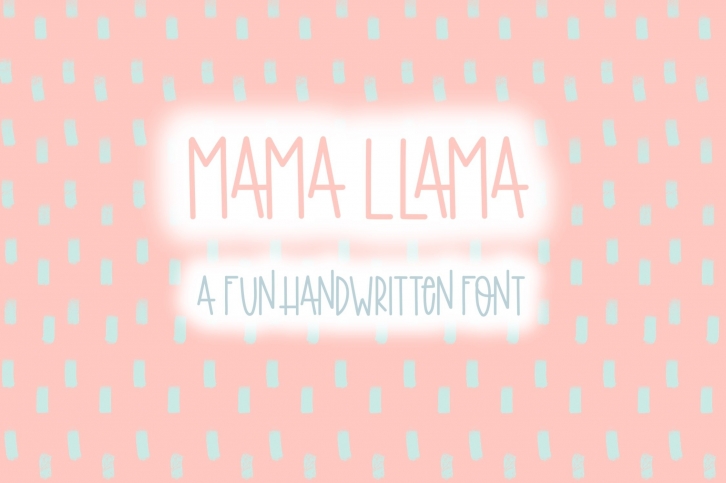
Mama Llama | Fun Handwritten Font | Bouncy Font Download
Mama Llama is a gorgeous font that was realeased on June 11, 2020. The font can be used in many style contexts and design environments. Perfect for invitations, magazines, websites, logos, and more! It was designed by Fairways and Chalkboards and the file size is 21.39 MB. Thanks for checking out this font!